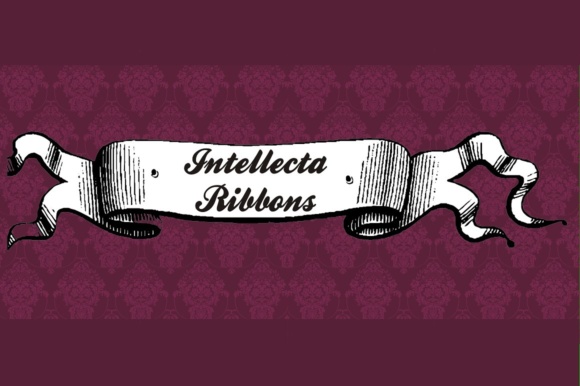
Intellecta Ribbons Font
You are correct. Intellecta Ribbons is a beautiful and ornate set of ribbons that can be easily incorporated into any design. The ribbons have an old-school, Victorian vibe that pairs beautifully with scripts and calligraphy styled fonts.
The ribbons are available in a variety of colors, including black, white, red, blue, and green. They are also available in a variety of styles, including simple, ornate, and floral.
Intellecta Ribbons can be used for a variety of purposes, including:
• Creating headers and footers for documents.
• Decorating invitations and greeting cards.
• Designing packaging and merchandise.
• Creating website headers and footers.
• Adding a touch of elegance to any design.
If you are looking for a way to add a touch of elegance and sophistication to your designs, Intellecta Ribbons is a great option. The ribbons are versatile and can be used for a variety of purposes. They are also high-quality and will look great in any design.
• The set contains 100 ribbons.
• The ribbons are high-quality vector images.
• The ribbons are available in black, white, red, blue, and green.